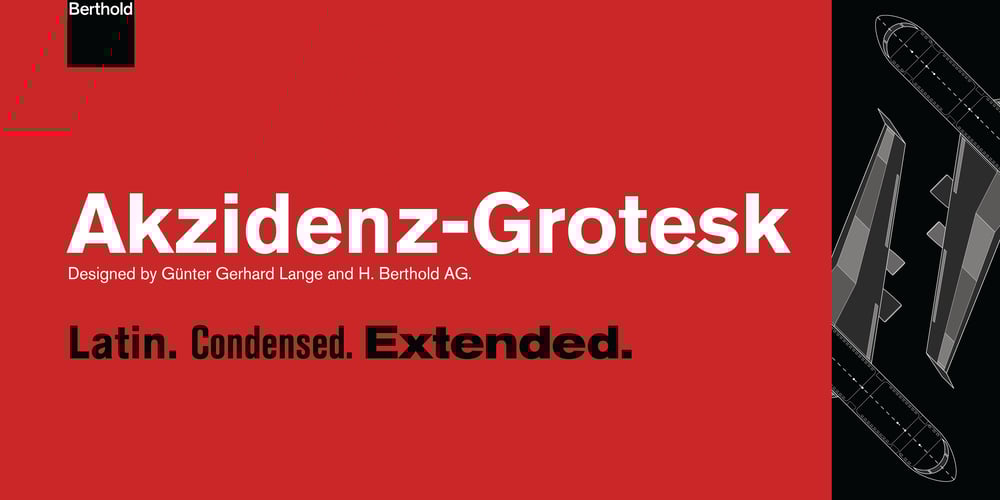
Akzidenz-Grotesk Font Family was designed by Günter Gerhard Lange, Berthold Design Studio and published by Berthold. Akzidenz-Grotesk contains 60 styles and family package options. Berthold first published Akzidenz-Grotesk in 1896. The design originates from Royal Grotesk light by Ferdinand Theinhardt who also supplied the regular, medium and bold weights. Throughout the years, Berthold has expanded this extremely popular and versatile family. AG Super was developed in 1968 by Günter Gerhard Lange and is an excellent choice for headlines. In 2001, Günter Gerhard Lange added more weights for Berthold including Super Italic and Extra Bold italic.